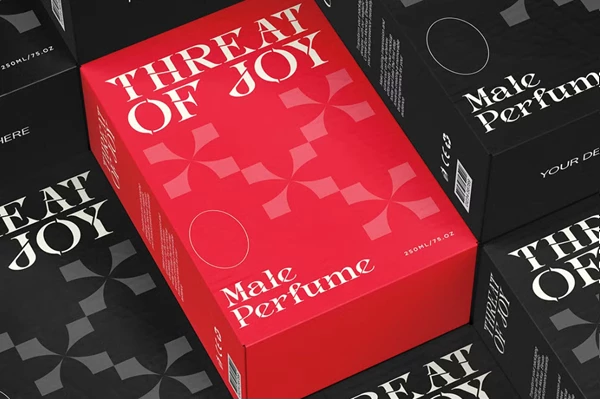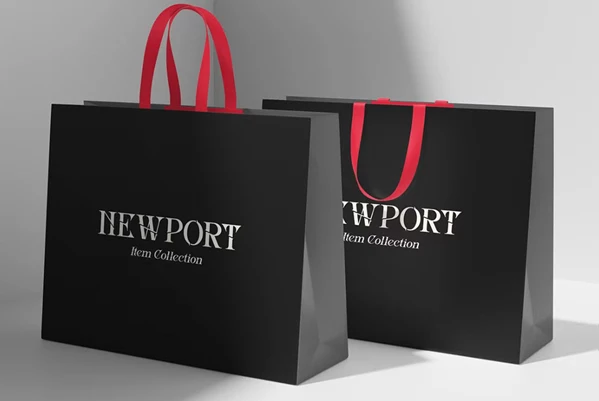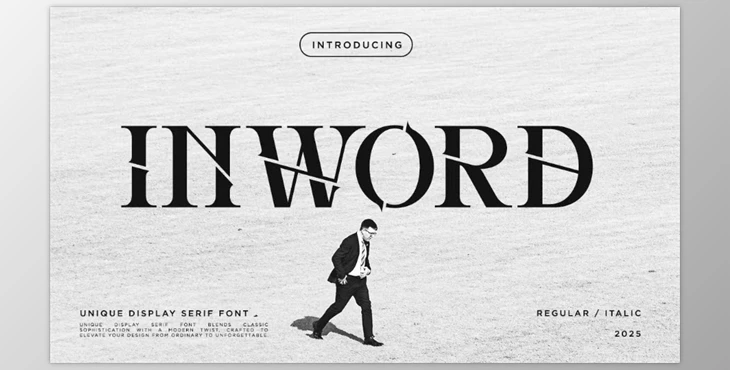
Inword - Modern Display Serif Font:
Inword is a luxury serif font, the serif of all serifs, with a seductive cut of serif. This type is created to convey elegance and greatness, a surefire approach to changing your mind about your brand's look. It's a sophisticated cut and will work to depict luxury and elegance anywhere it is placed.
Perfect for logo development, fashion and luxury branding, magazines, beauty and packaging products, this font can be used for everything from perfume to chic text over a background image. One thing's for sure - your reader will know this design is stylishly done.